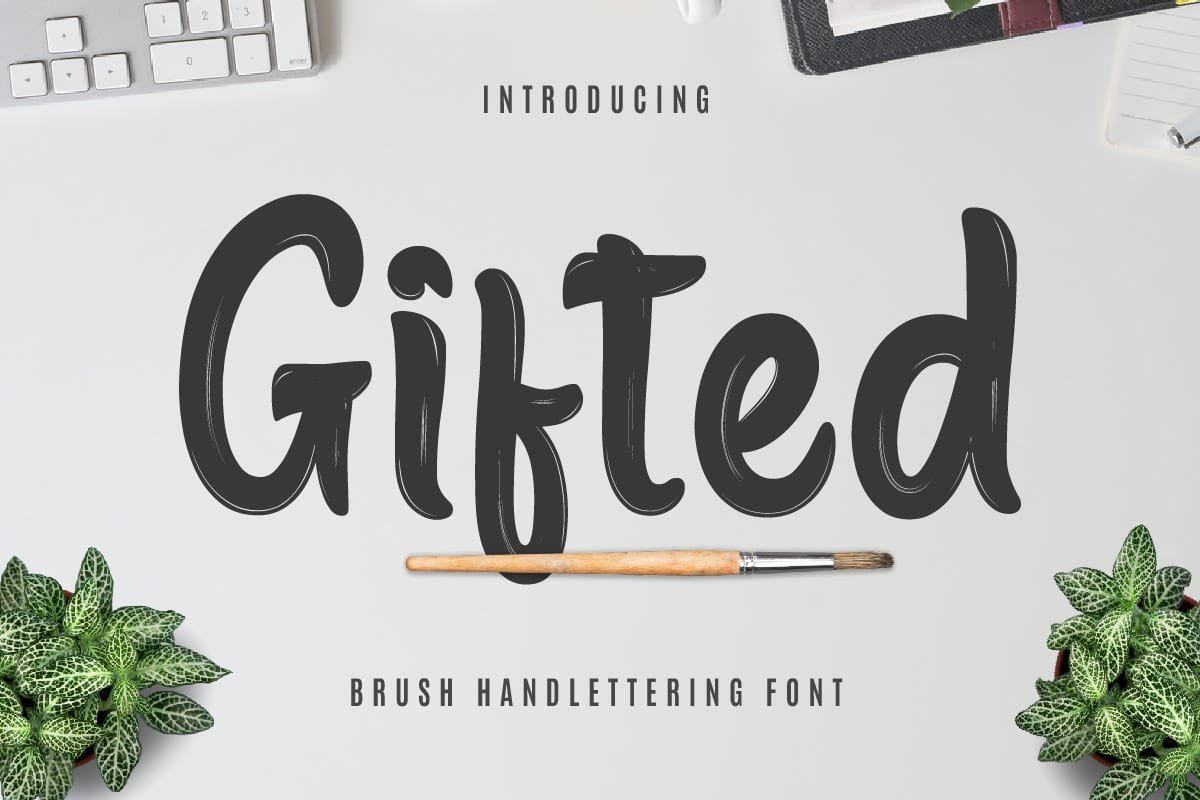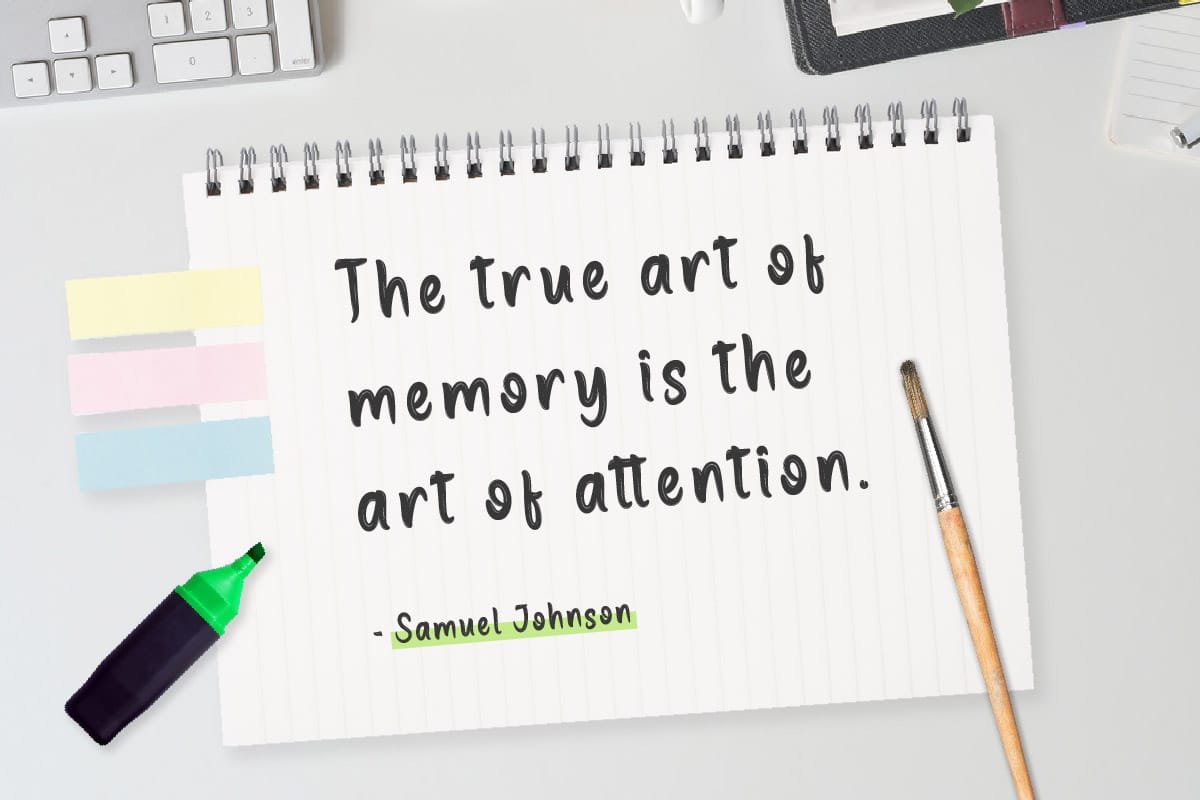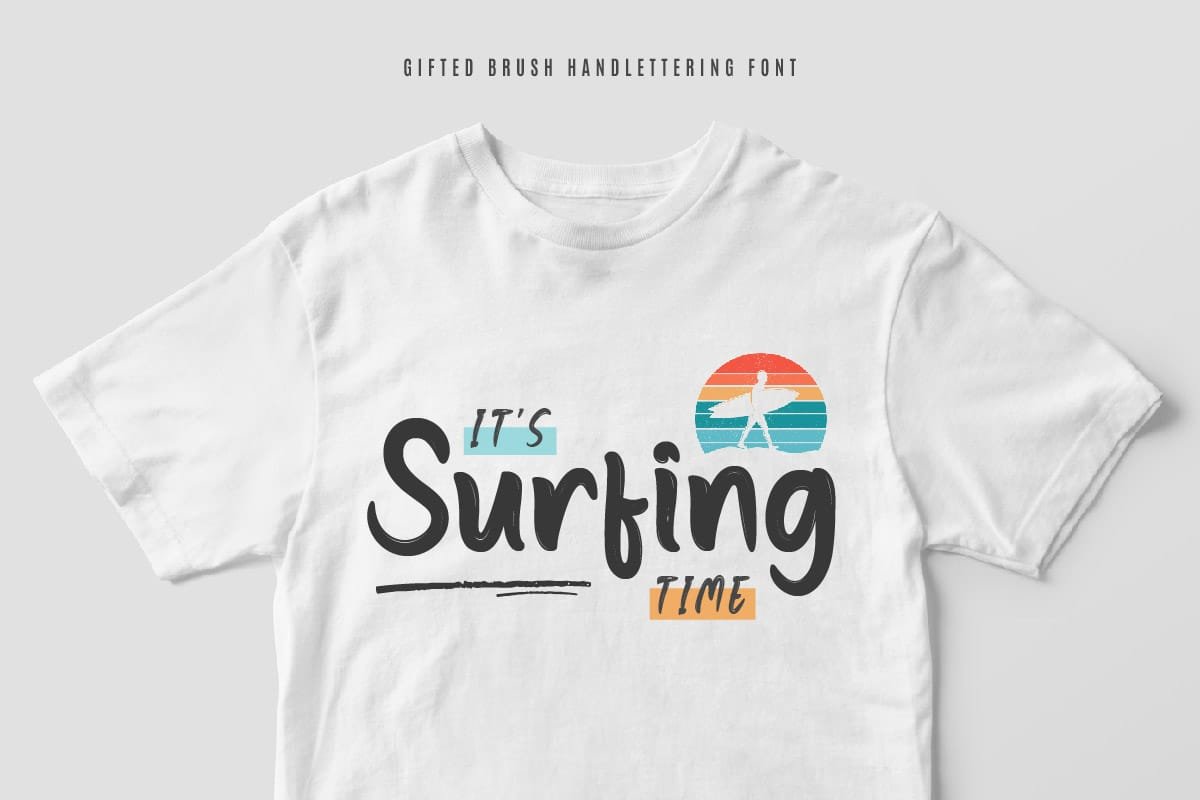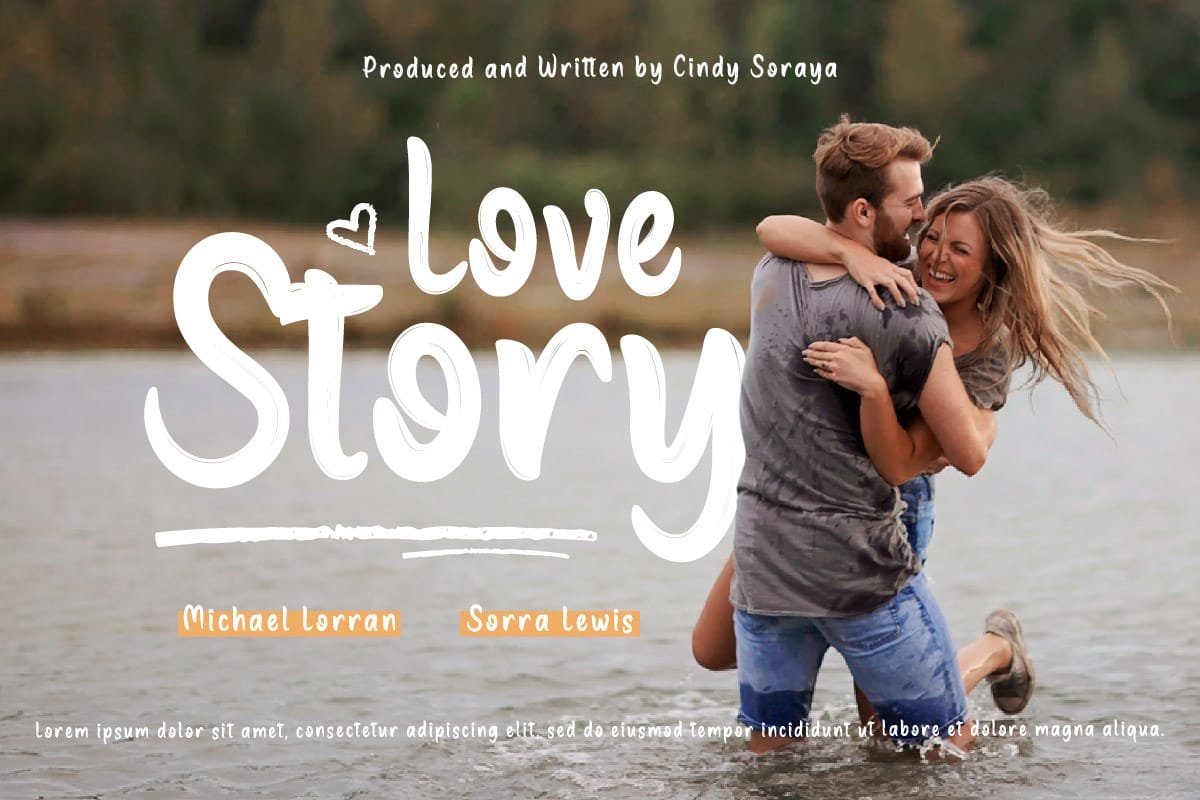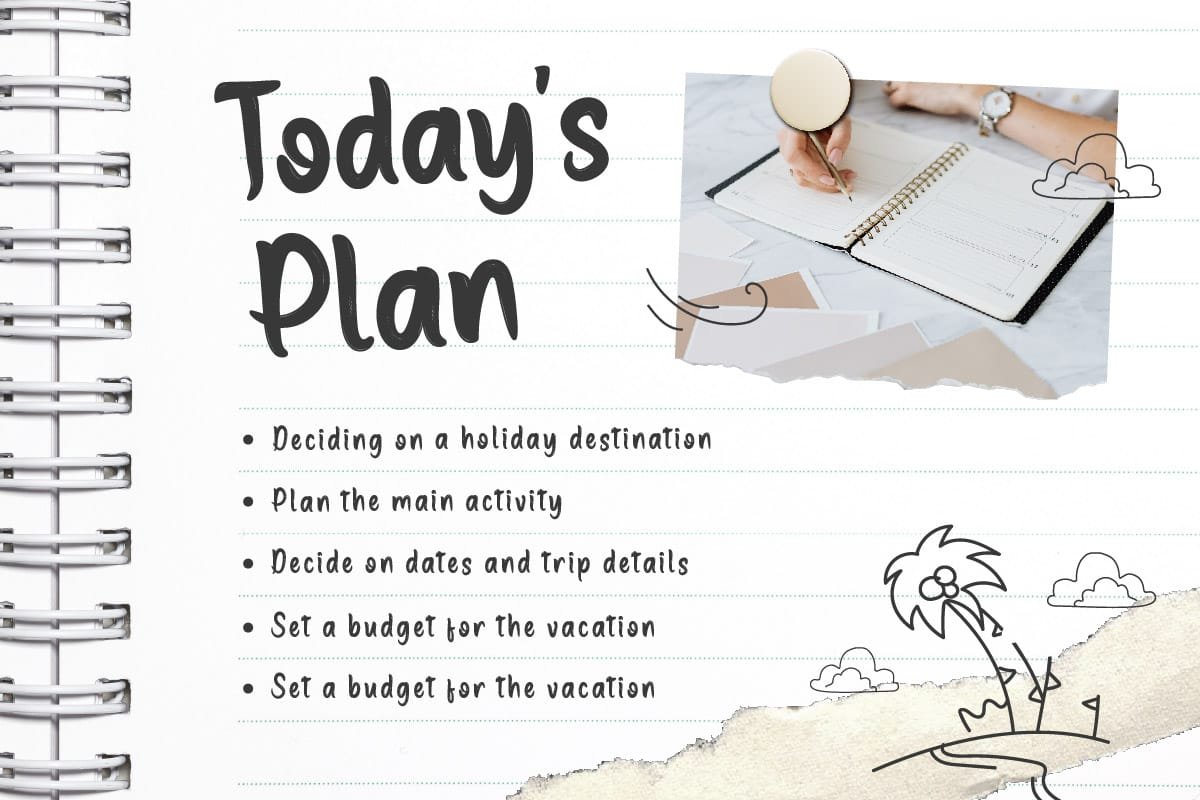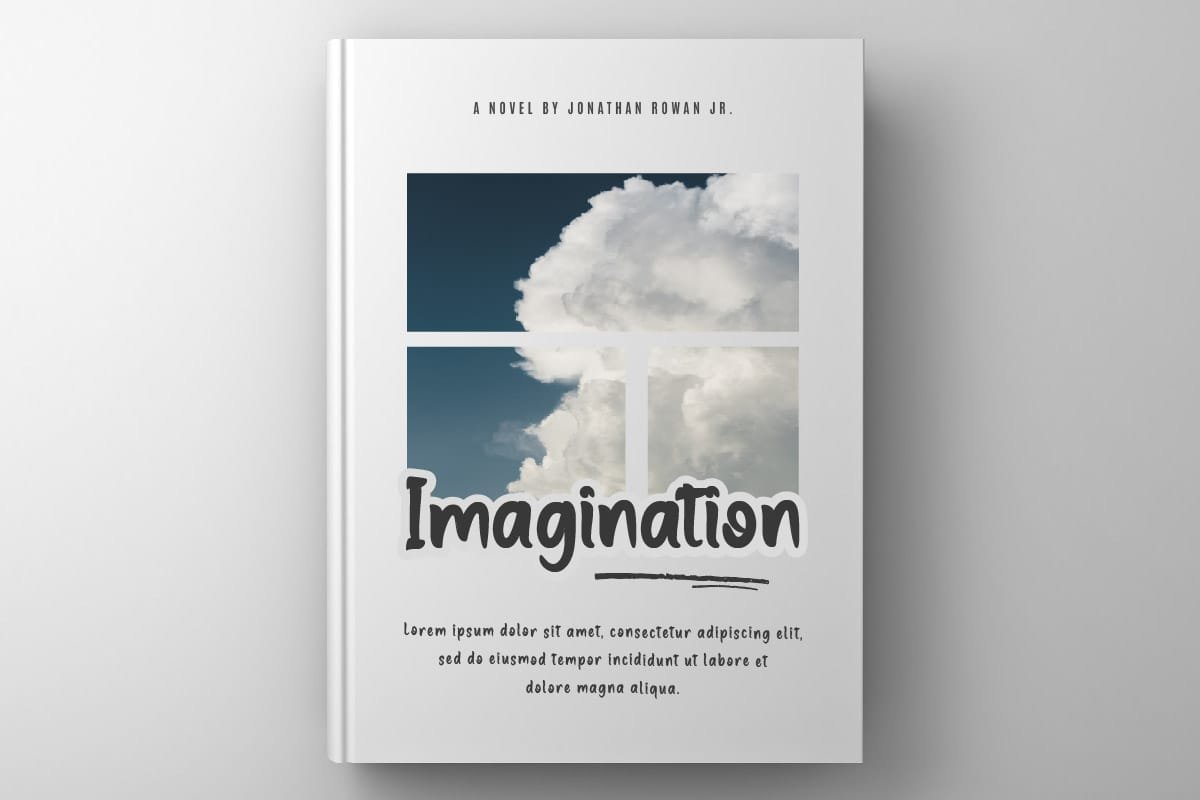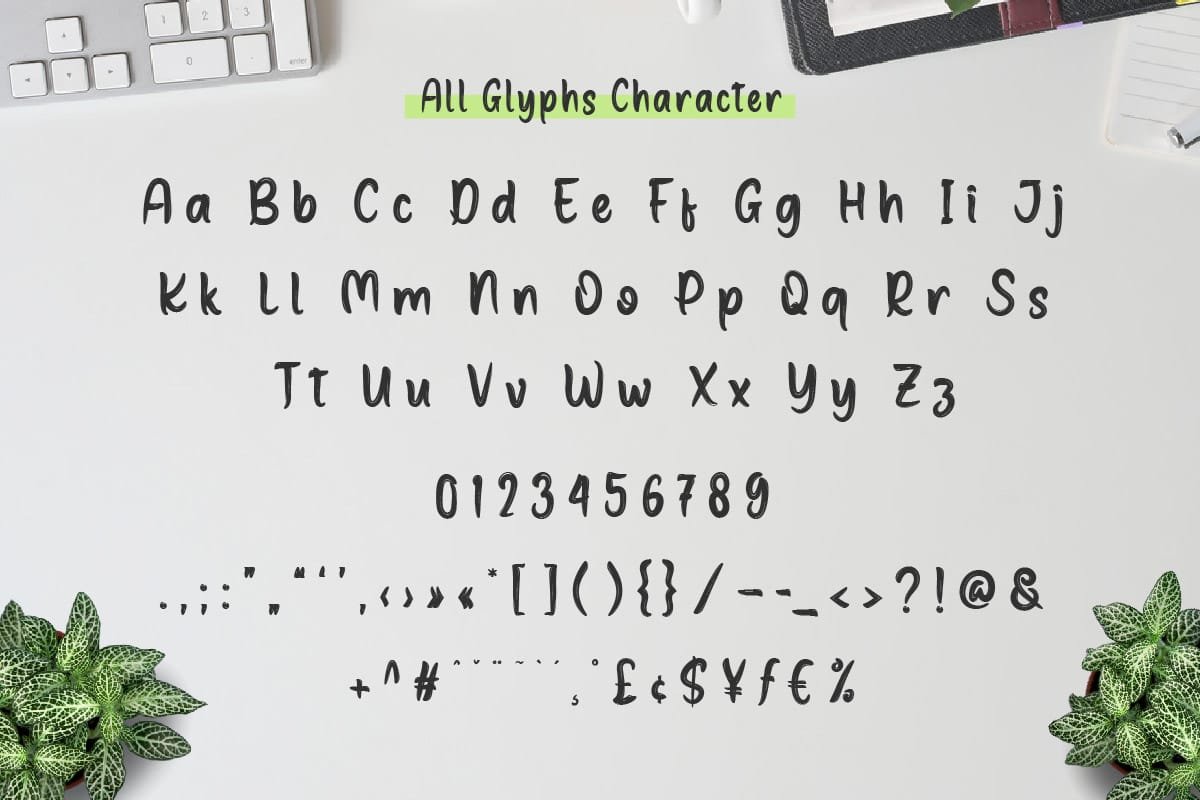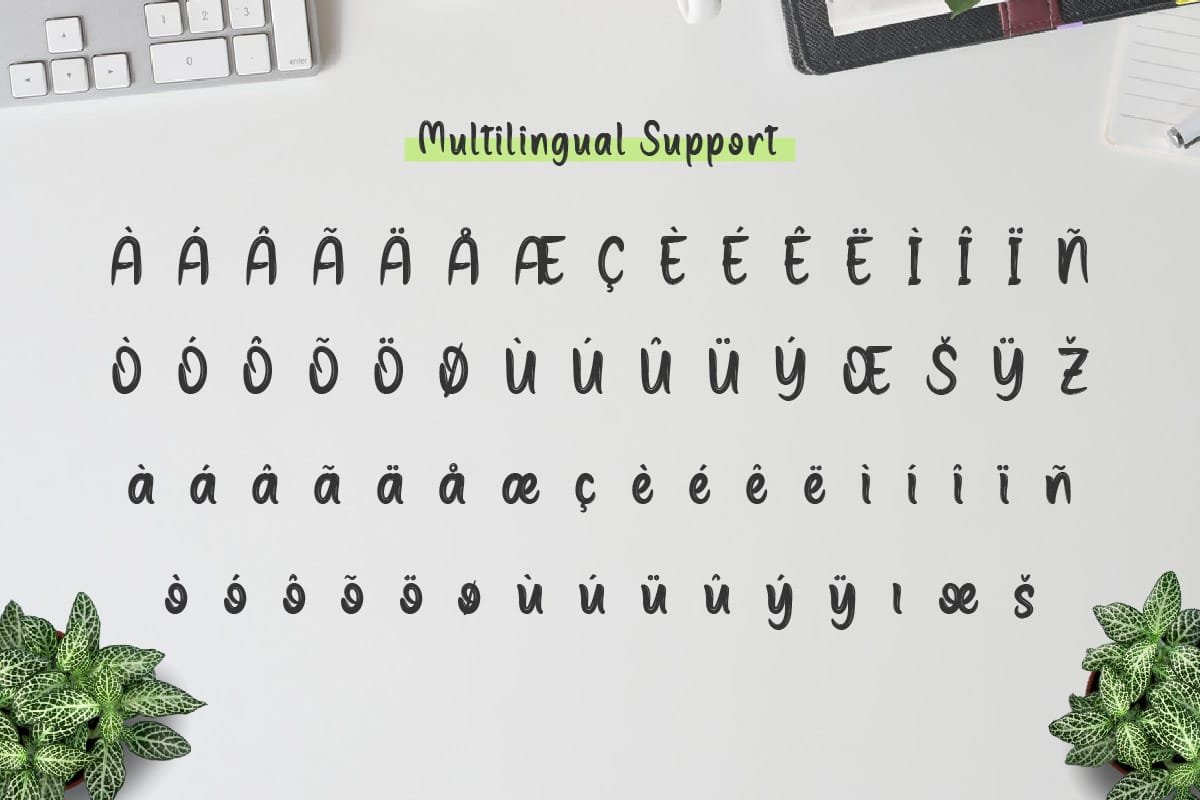
Gifted is a brush handwritten font that combines style and spontaneity. Its unique, free-flowing characters are perfect for designs that require a touch of creativity and individuality. From eye-catching headlines to personal signatures, Gifted adds a touch of personality that makes your designs stand out.